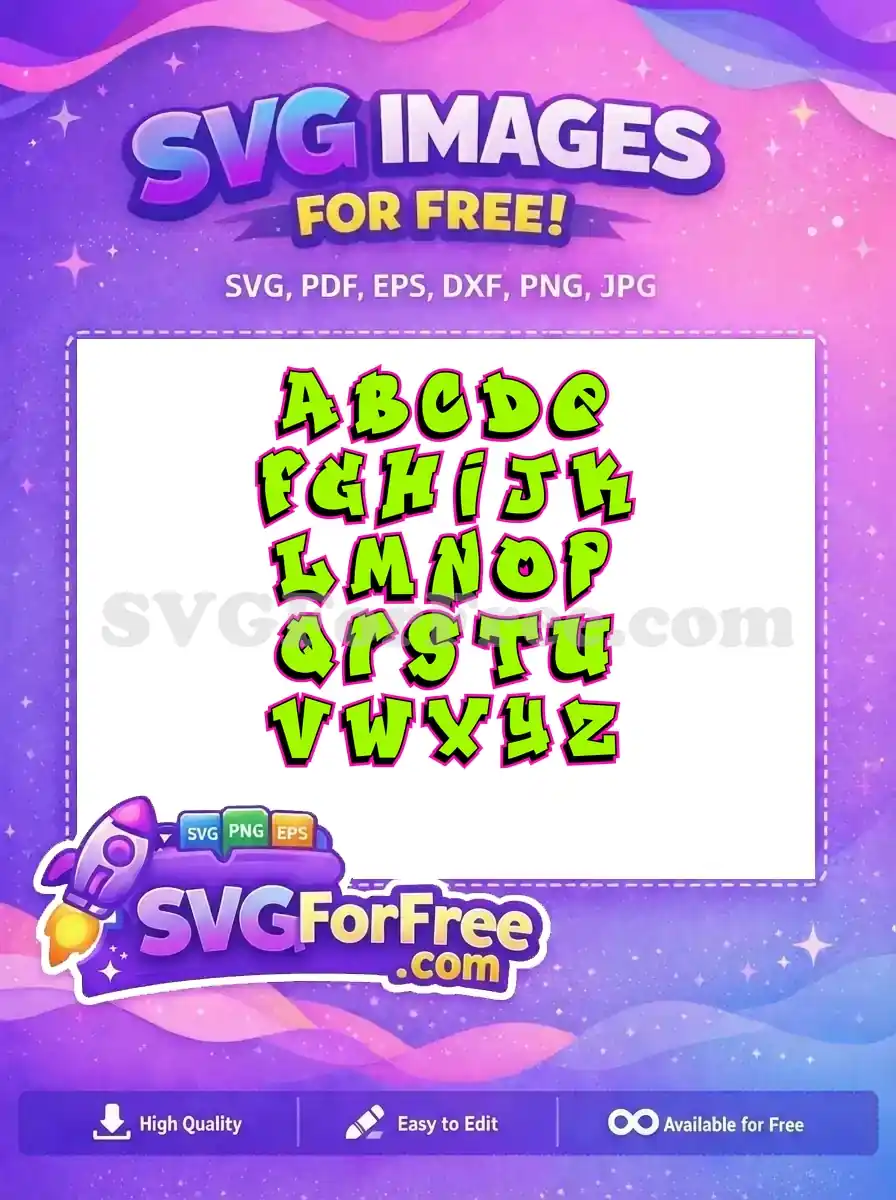
Free Graffiti Font Free Neon Pink Outline Alphabet Free SVG – Instant Download
A full alphabet design in a textured, green, and slightly grungy style, provided as a free-to-use graphic.
Free Graffiti Font Free Neon Pink Outline Alphabet Free SVG